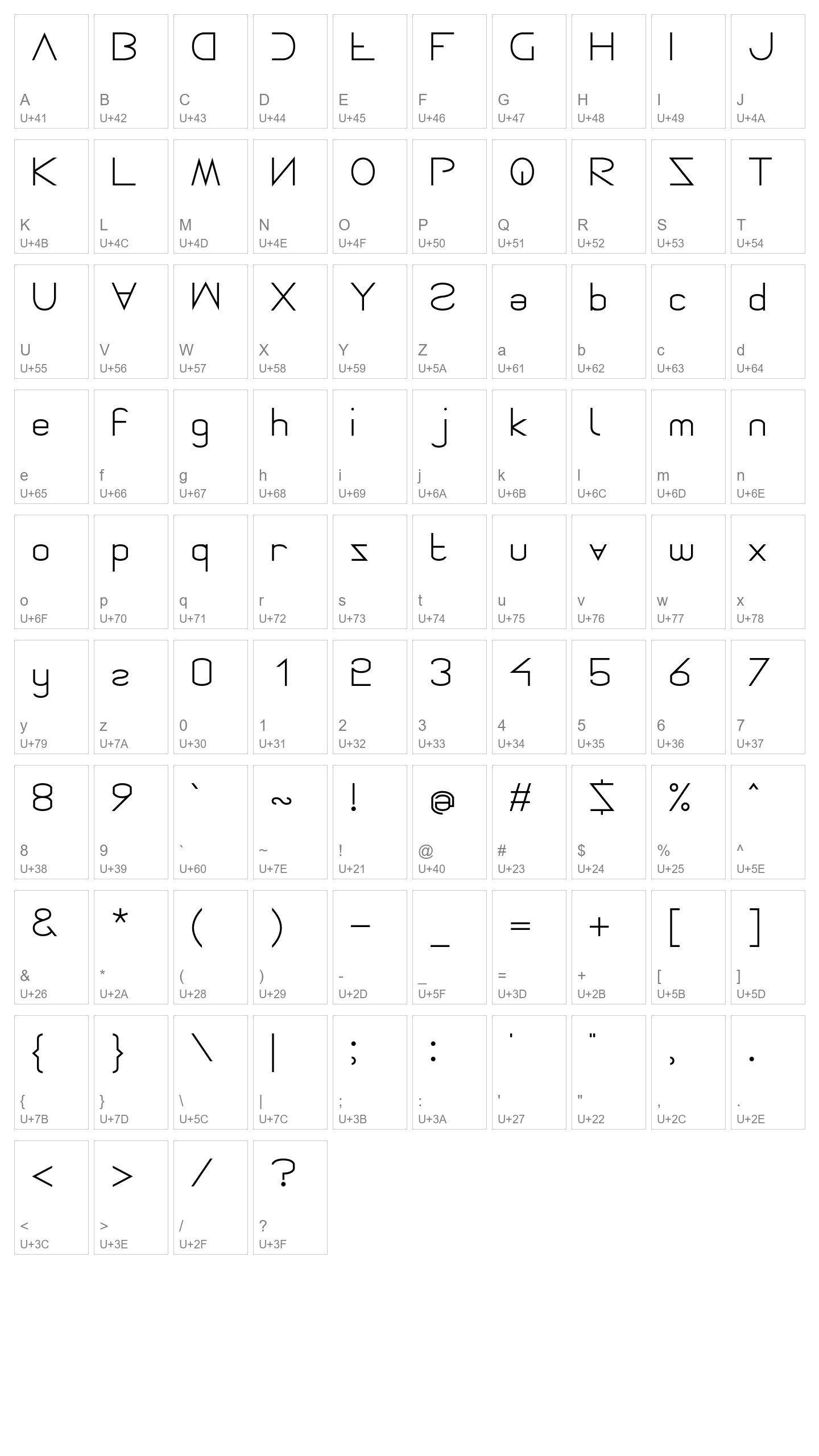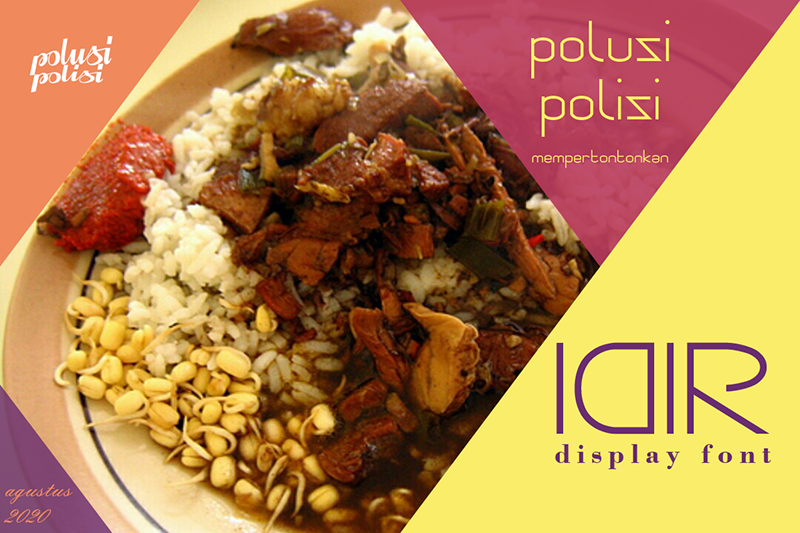
Icir
Hello, design enthusiasts. Introduce, this is my newest font, named Icir.
Icir is a display font that denotes simple lines, has a cryptic and modern impression.
Icir is perfect for use on logo design, media, mobile apps, social media, website design, youtube videos, etc.